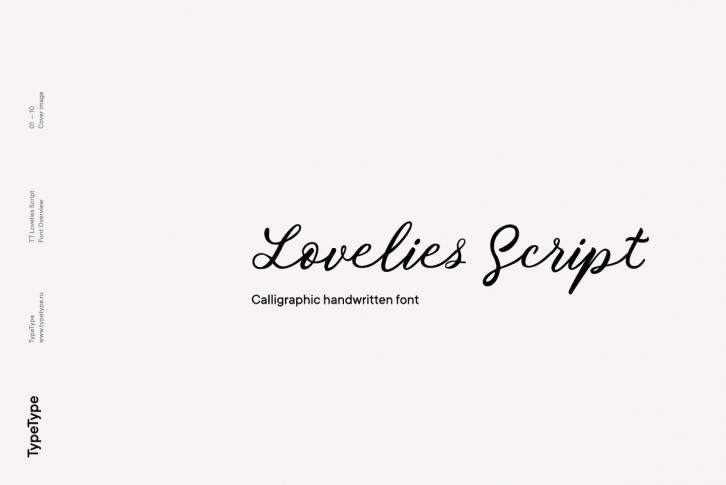
Without any false modesty we can say that TT Lovelies Script is one of the most complicated projects we have ever carried out – there are 1115 glyphs, more than 2000 contextual alternates, 10000 kerned pairs and a large number of OT features, including ligatures and Old Style numbers.
The most important characteristic of this font is that it is really seamless. We've done the impossible: in TT Lovelies Script, even capital letters are connected to lower-case letters without any breaks. The base for our typeface is original calligraphy by Russian designer Alena Korobanova. The beautiful handwriting was painstakingly crafted into a fully functional font.
TT Lovelies Script is a very lively and playful typeface with some unpredictable nuances.
Turn on the use of OT features CALT & DLIG in your graphic editor and use the font to the full. Every lower-case letter has characteristic pen strokes which begin and end a word. The pen strokes are turned on automatically when you accordingly type two hyphens at the beginning and at the end of a word. For instance, type '- - apricot - -' and you'll see the beautiful pen strokes at the beginning and at the end of the word.
TT Lovelies Script uses a great number of contextual alternates and ligatures which help maintain the handwritten impression. For each letter, a separate grapheme is created for the end of a line, and we've also integrated the Case Sensitive OT feature to make working with upper-case characters easier. We've enabled onum, sups, sinf, numr, dnom, frac, ordn as well in order to work with figures. To benefit from all of these wonderful options, you need to use software which supports OT features.